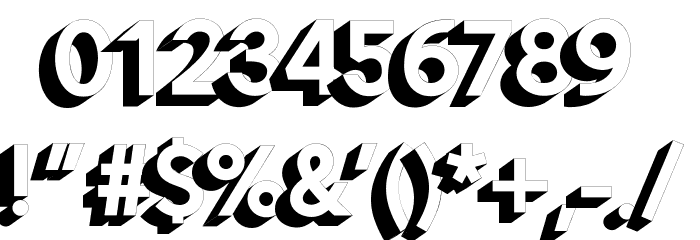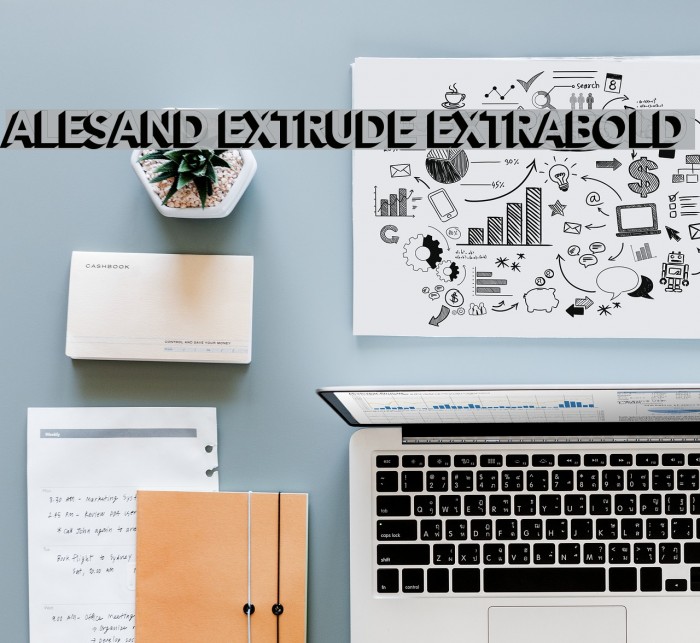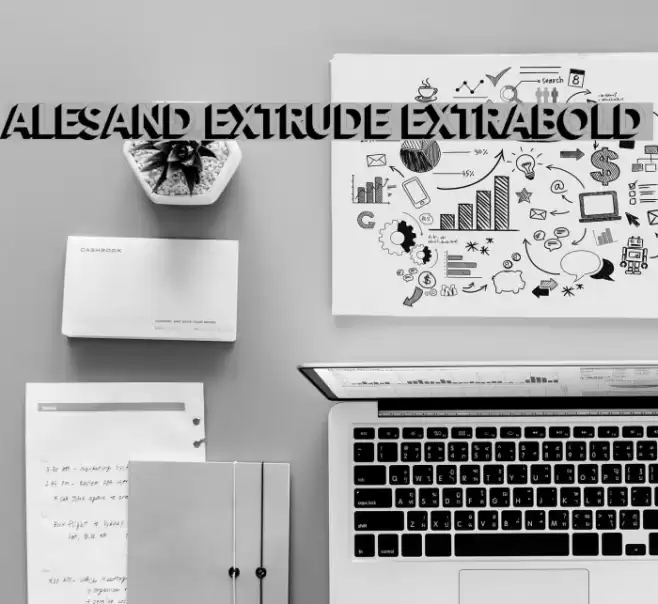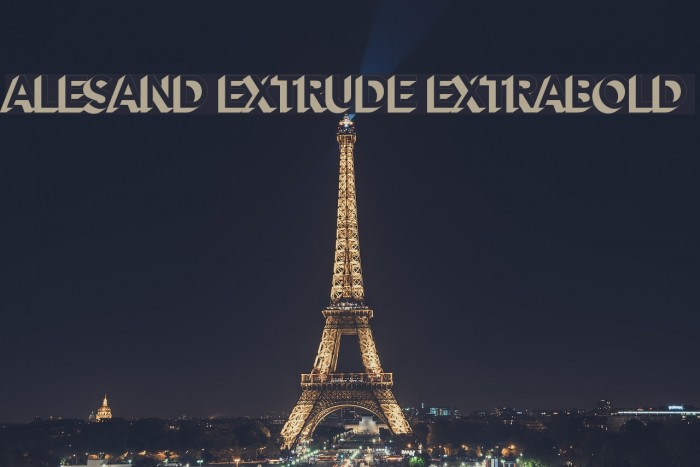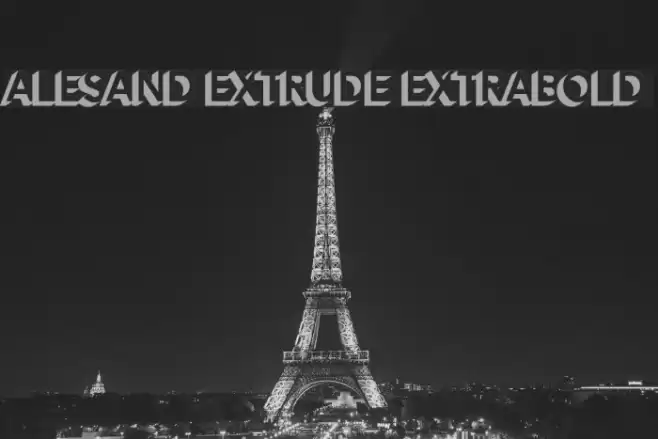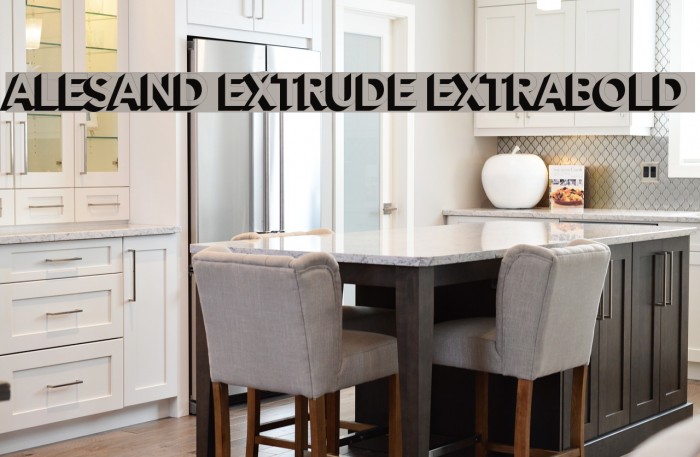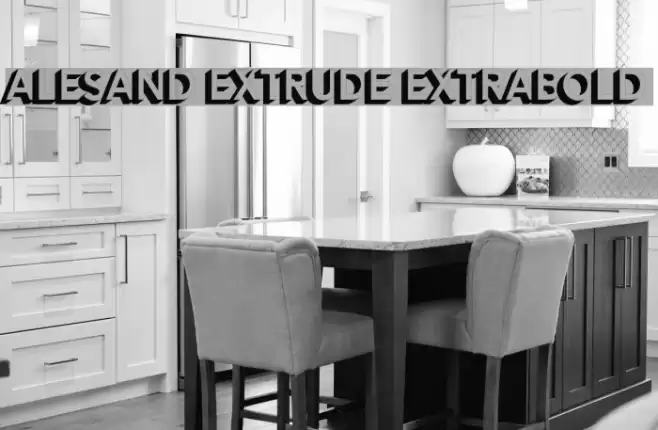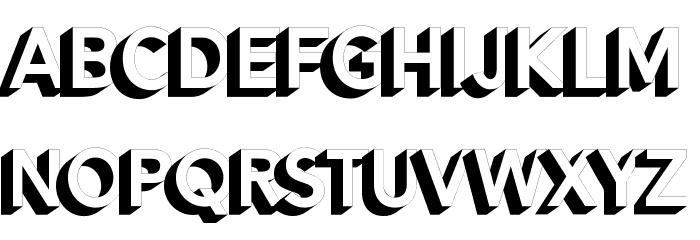
Alesand Extrude ExtraBold Font
Alesand Extrude ExtraBold Description
This font features a bold, extruded style that gives a three-dimensional effect, making it stand out prominently. The characters are uppercase and have a strong geometric structure with clean lines and sharp angles. The extrusion adds depth and a shadow effect, enhancing its visual impact. The font is designed to capture attention and convey a sense of modernity and strength. Its boldness and unique style make it suitable for projects that require a striking and memorable typeface.
| Proposed Projects | Ideal for headlines, posters, logos, and branding materials that need a bold and impactful presence. |